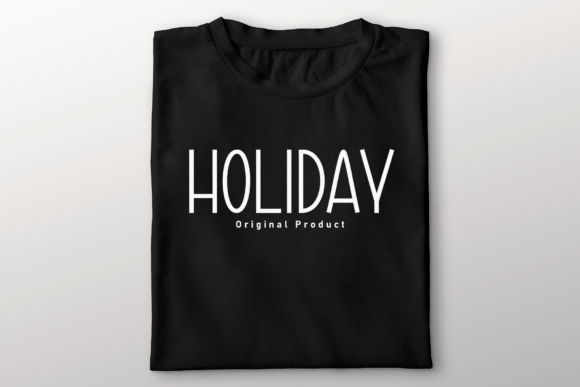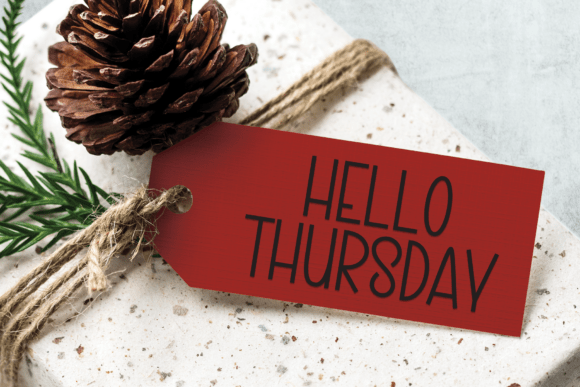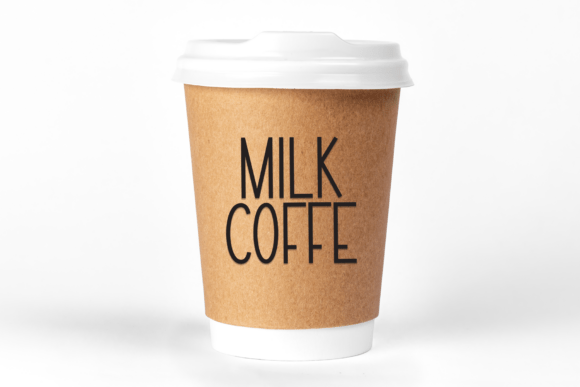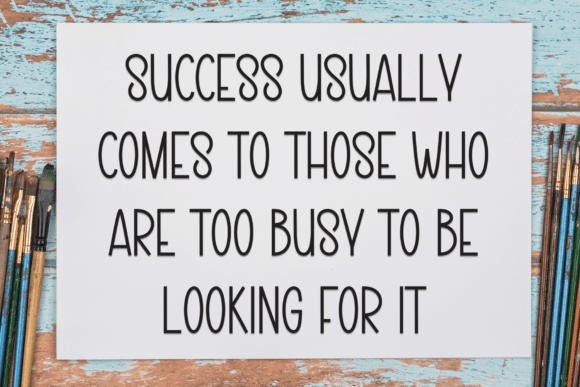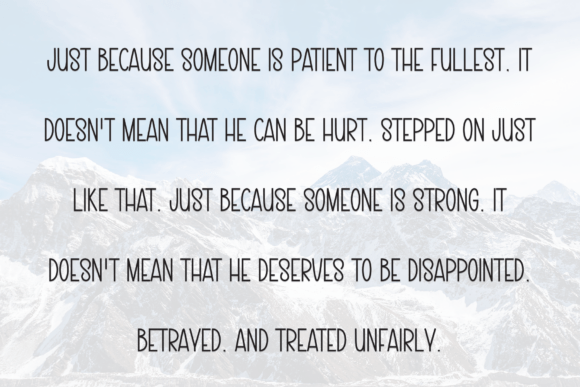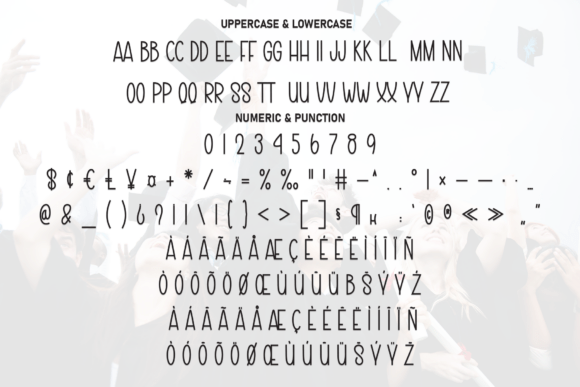
Introducing Graduation Font: The Perfect Blend of Warmth and Clarity
Are you tired of using fonts that are too formal or too dull for your design projects? Look no further than Graduation Font, a casual and neat display font that’s designed to bring warmth and clarity to your creations. With its clean structure and approachable style, Graduation Font is perfect for branding, headlines, and everyday designs that require a touch of personality.
The Characteristics of Graduation Font
Graduation Font boasts a range of characteristics that make it an excellent choice for designers and crafters. Its balanced letterforms offer exceptional readability and charm, making every message feel genuine and inviting. The font’s clean structure and approachable style ensure that it suits a wide range of projects, from formal branding to casual social media posts.
What Makes Graduation Font Stand Out?
So, what sets Graduation Font apart from other fonts on the market? Here are just a few reasons why designers and crafters are falling in love with this versatile font:
- Warmth and Clarity: Graduation Font is designed to bring a sense of warmth and clarity to your projects. Its clean lines and balanced letterforms make it easy to read, even at smaller sizes.
- Casual yet Professional: Graduation Font strikes the perfect balance between casual and professional. It’s approachable and friendly, yet still looks polished and refined.
- Versatility: Graduation Font is incredibly versatile, making it suitable for a wide range of projects, from branding and headlines to social media posts and everyday designs.
- Readability: The font’s balanced letterforms and clean structure ensure that it’s highly readable, even at smaller sizes.
How to Use Graduation Font in Your Designs
Graduation Font is an incredibly versatile font that can be used in a wide range of design projects. Here are just a few ideas to get you started:
- Branding: Use Graduation Font as a logo font or as a typography font for your brand’s marketing materials.
- Headlines: Graduation Font makes an excellent headline font, adding a touch of warmth and personality to your titles and headings.
- Social Media Posts: Use Graduation Font to add a personal touch to your social media posts and stories.
- Signage: Graduation Font is perfect for signage, adding a clear and easy-to-read touch to your signs and displays.
Tips for Getting the Most Out of Graduation Font
Here are a few tips for getting the most out of Graduation Font:
- Experiment with Sizes: Graduation Font looks great at a range of sizes, from small and delicate to large and bold.
- Play with Colors: Graduation Font works well with a range of colors, from bright and bold to muted and pastel.
- Mix and Match: Don’t be afraid to mix and match Graduation Font with other fonts to create a unique and eye-catching look.
Graduation Font is a versatile and charming font that’s perfect for designers and crafters looking to add a touch of warmth and personality to their projects. With its clean structure, approachable style, and balanced letterforms, Graduation Font is sure to become a favorite in your design toolkit. So why not give it a try today and see the difference it can make in your designs?